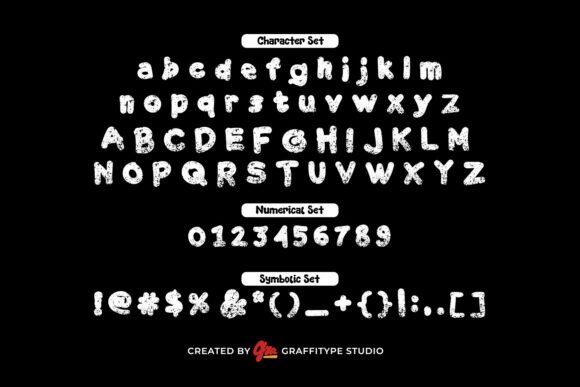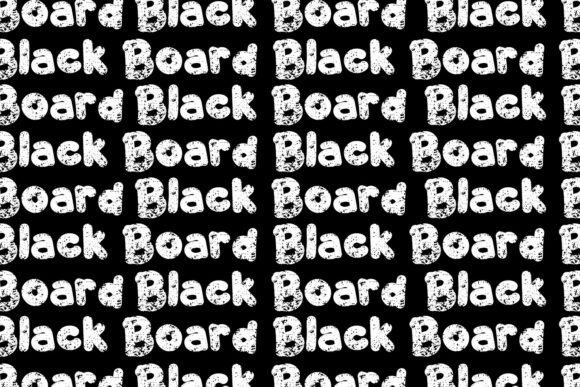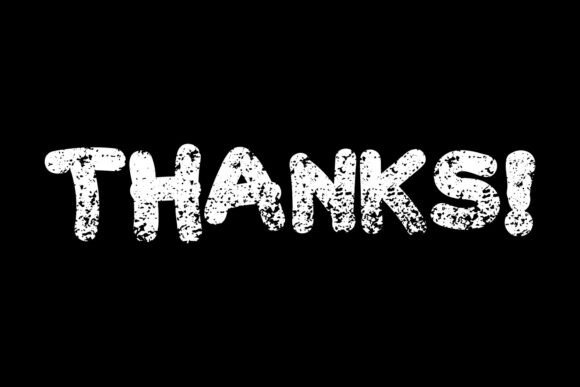
Unleashing the Power of Handmade Charm
Do you remember the thrill of doodling on a dusty blackboard as a child, the sound of chalk scratching against the smooth surface, and the joy of watching your creation come to life? For many creatives, that same sense of freedom and spontaneity is exactly what they’re looking for in a font. Enter Chalk Scratches Rough Font, a bold and expressive typeface that captures the raw, textured feel of hand-drawn chalk on a blackboard.
This versatile font is perfect for designers who want to add a playful yet gritty tone to their visual storytelling. With its rough edges, uneven strokes, and distressed details, Chalk Scratches Rough Font exudes an organic and spontaneous character that’s sure to stand out in headlines, posters, packaging, and signage. Whether you’re looking to evoke nostalgia or add a touch of street-style flair, this font delivers a strong visual impact that’s impossible to ignore.
Chalk Scratches Rough Font Key Features
- Unique Characteristics: Hand-drawn, rough texture, and chalkboard-like appearance
Chalk Scratches Rough Font Review
Overall, I’m impressed with the Chalk Scratches Rough Font. It’s a unique and creative typeface that can add a touch of personality to any design project. ✨ The font’s rough, hand-drawn feel gives it a charming, human-like quality that’s perfect for creative, artistic, or illustrative projects.
- Unique, hand-drawn feel that adds a personal touch
- Perfect for creative, artistic, or illustrative projects
- Works well in smaller text sizes, where the rough texture adds visual interest
- Can be used to create a sense of nostalgia or retro charm
However, the Chalk Scratches Rough Font is not without its limitations. ⚠️ The font’s rough texture can be distracting in larger text sizes, and the characters may not be suitable for projects where readability is a top priority. Additionally, the font’s unique style may not be to every designer’s taste.
While the Chalk Scratches Rough Font has its limitations, I think it’s a great addition to any designer’s toolkit. When used thoughtfully and in the right context, it can add a touch of personality and creativity to even the most mundane design projects. With a little creativity and experimentation, I think designers can get the most out of this unique and charming font.
For best results, use the Chalk Scratches Rough Font for:
- Distressed or vintage-inspired designs.
- Handwritten or cursive text effects.
- Outdoor or educational signage.
Experiment with different font sizes and colors to achieve the desired look.
Alternatives to Chalk Scratches Rough Font
Great Vibes is a beautiful, handwritten font with a casual and friendly feel. It’s perfect for use in social media posts, advertisements, and other creative projects where a relaxed tone is desired. Great Vibes has a more elegant and refined look compared to Chalk Scratches Rough Font, making it suitable for a wider range of applications.
Comparison: While both fonts have a handwritten feel, Great Vibes is more polished and sophisticated, whereas Chalk Scratches Rough Font has a more rustic and distressed look.
Pacifico is a modern, elegant script font that’s perfect for use in branding, packaging, and other design projects where a touch of sophistication is desired. It has a more refined and polished look compared to Chalk Scratches Rough Font, making it suitable for a wider range of applications.
Comparison: While both fonts have a handwritten feel, Pacifico is more refined and elegant, whereas Chalk Scratches Rough Font has a more rugged and distressed look.
Alex Brush is a beautiful, handwritten font with a elegant and refined feel. It’s perfect for use in branding, packaging, and other design projects where a touch of sophistication is desired. Alex Brush has a more polished and refined look compared to Chalk Scratches Rough Font, making it suitable for a wider range of applications.